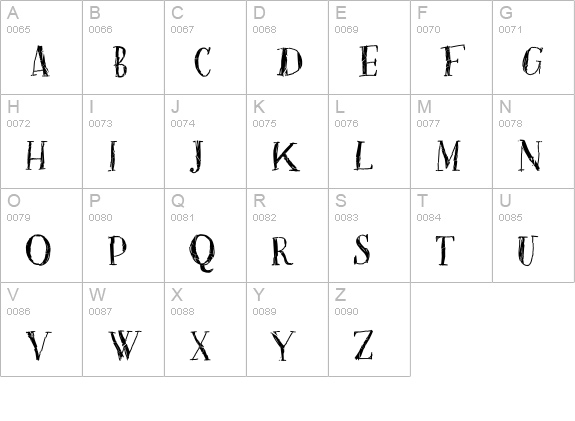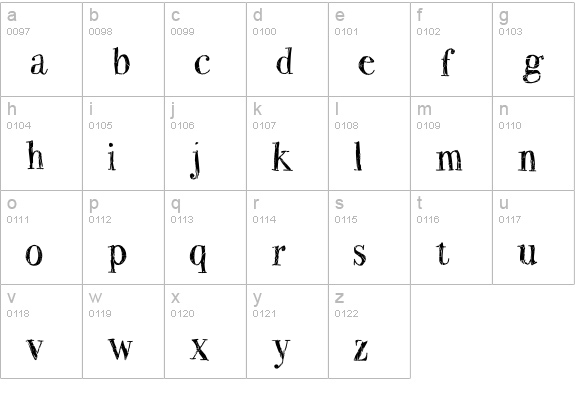
Two Fingers Bodoni Crashed font is a unique and eye-catching typeface that combines elegance with a touch of edginess. The distressed and rough texture of the letters gives this font a modern and urban feel, making it perfect for projects that require a bold and unconventional look. This font is freely available to download at FontsMarket.com, making it easily accessible for designers and creatives looking to add a creative flair to their work. With its striking appearance and versatile design, Two Fingers Bodoni Crashed font is sure to make a powerful impact in any design project.